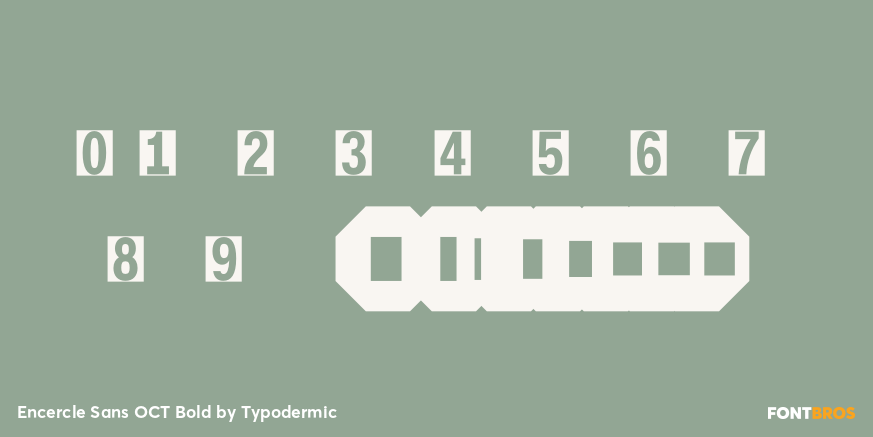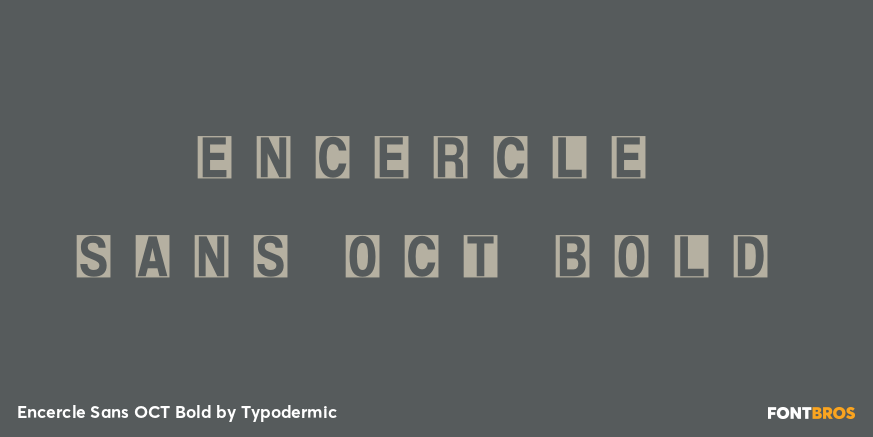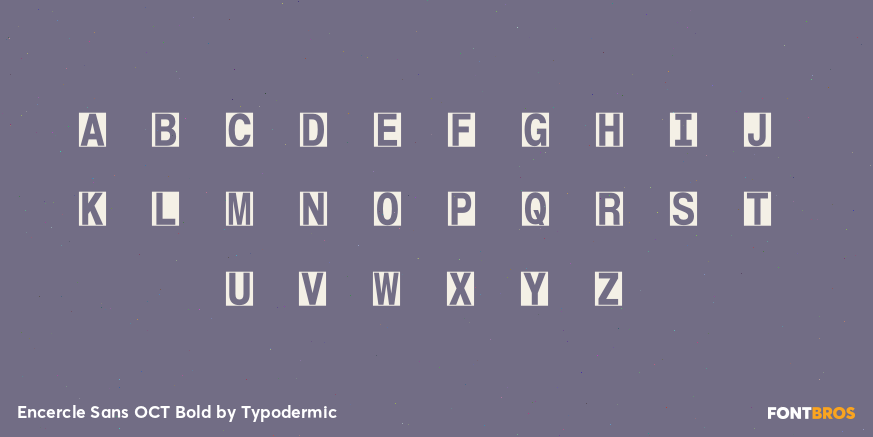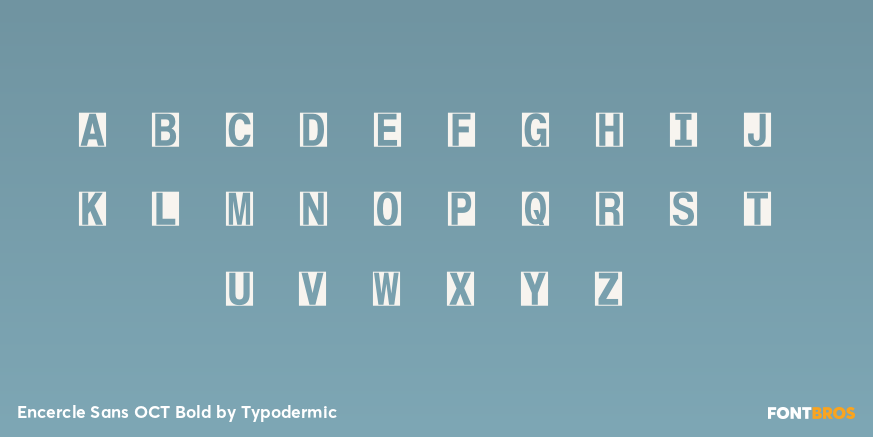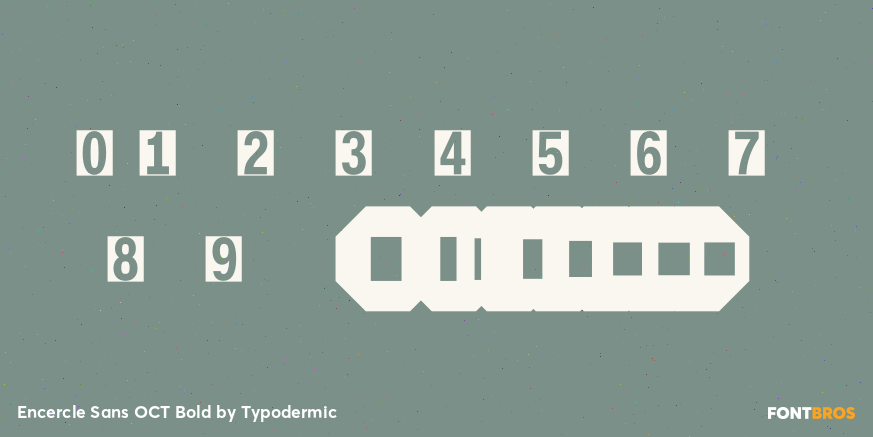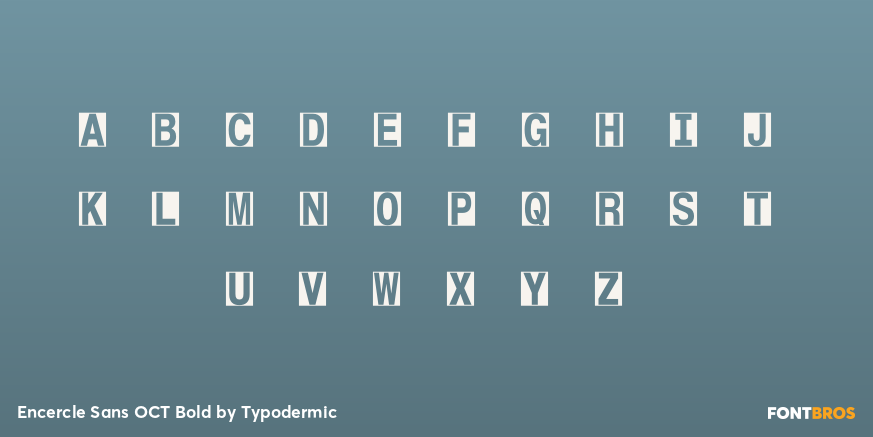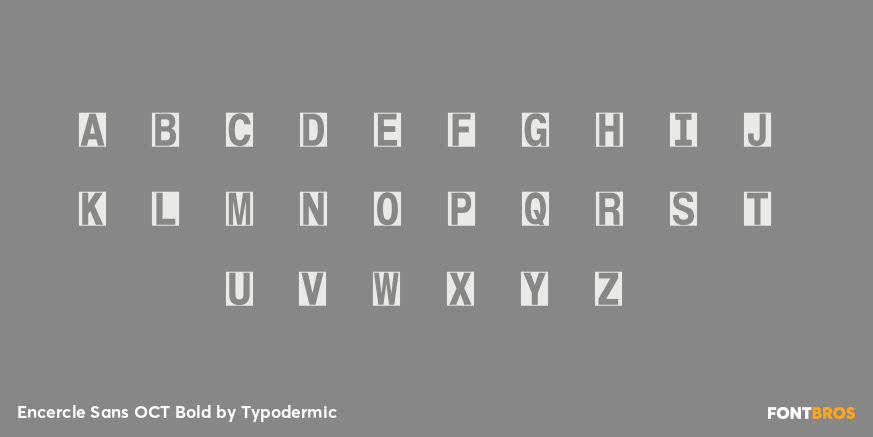
Encercle Sans OCT Bold
Use OCT for maintenance hold points, restricted-area references, safety-procedure steps, and warning keys in facility maps or equipment documentation. It serves searches for an octagon-number font, stop-sign callout font, or editable safety-marker typeface.